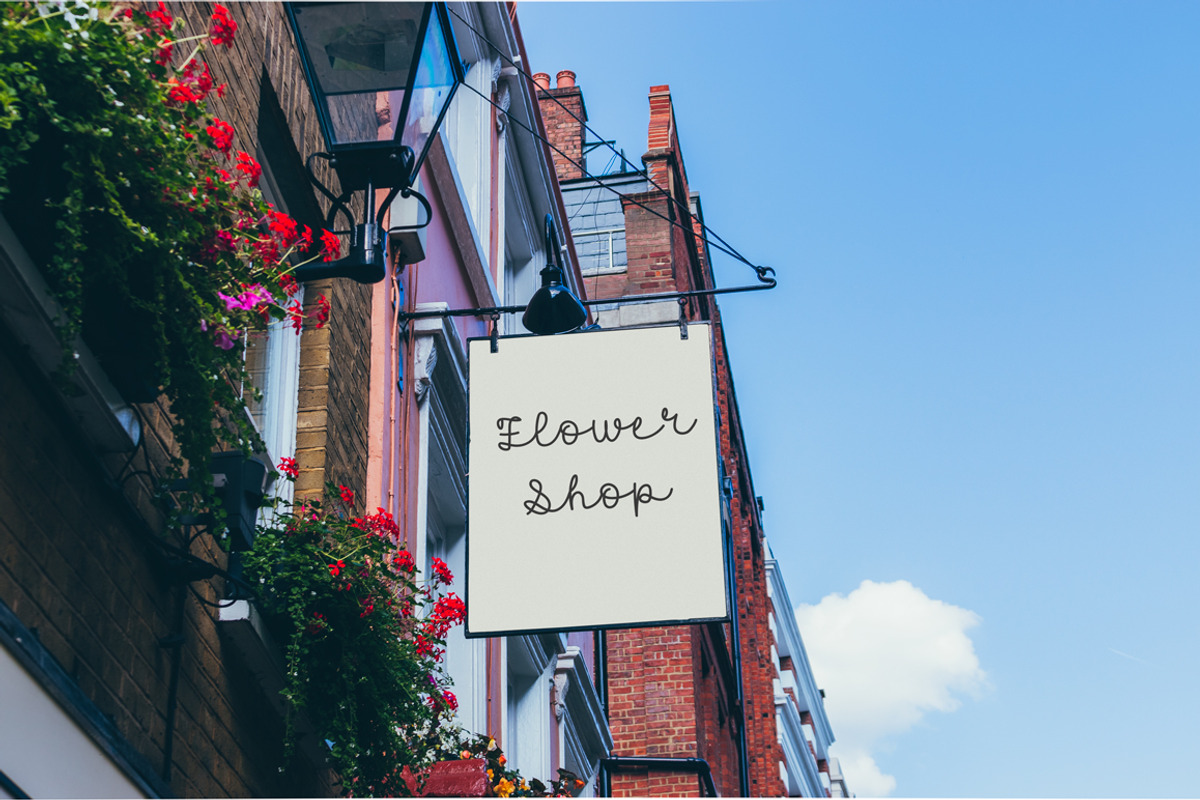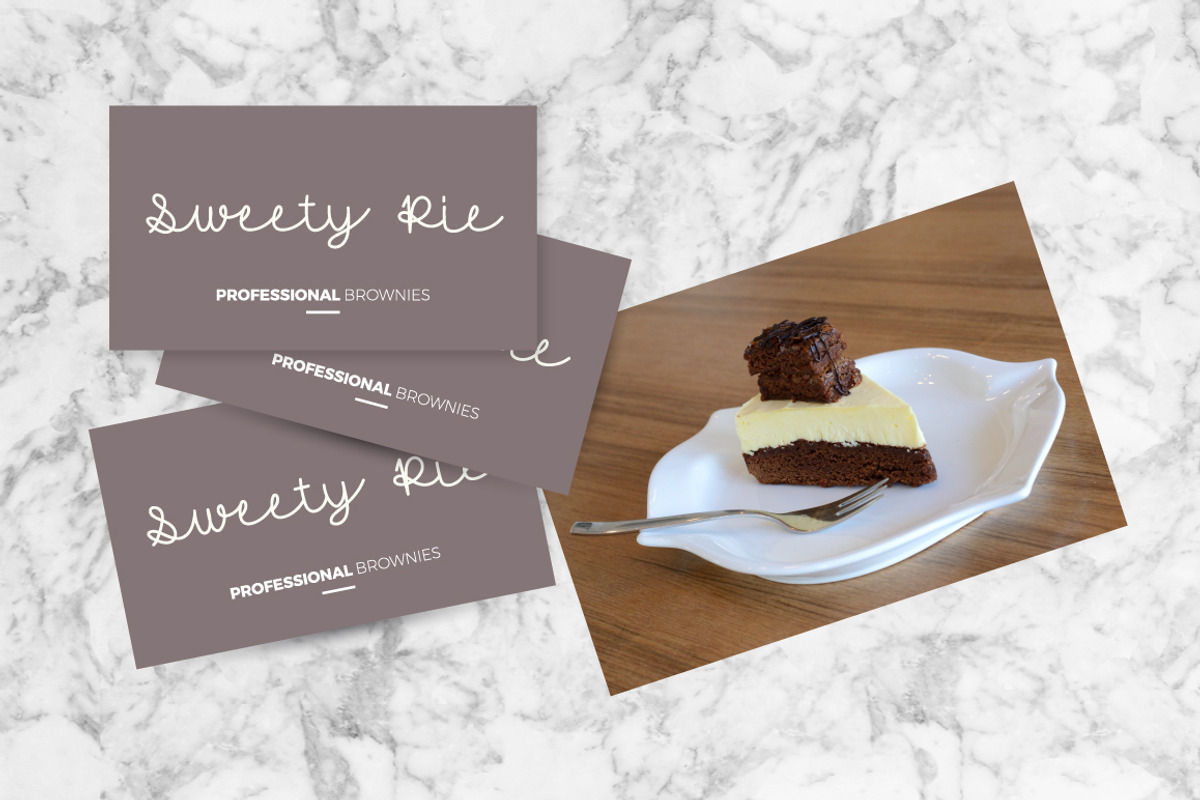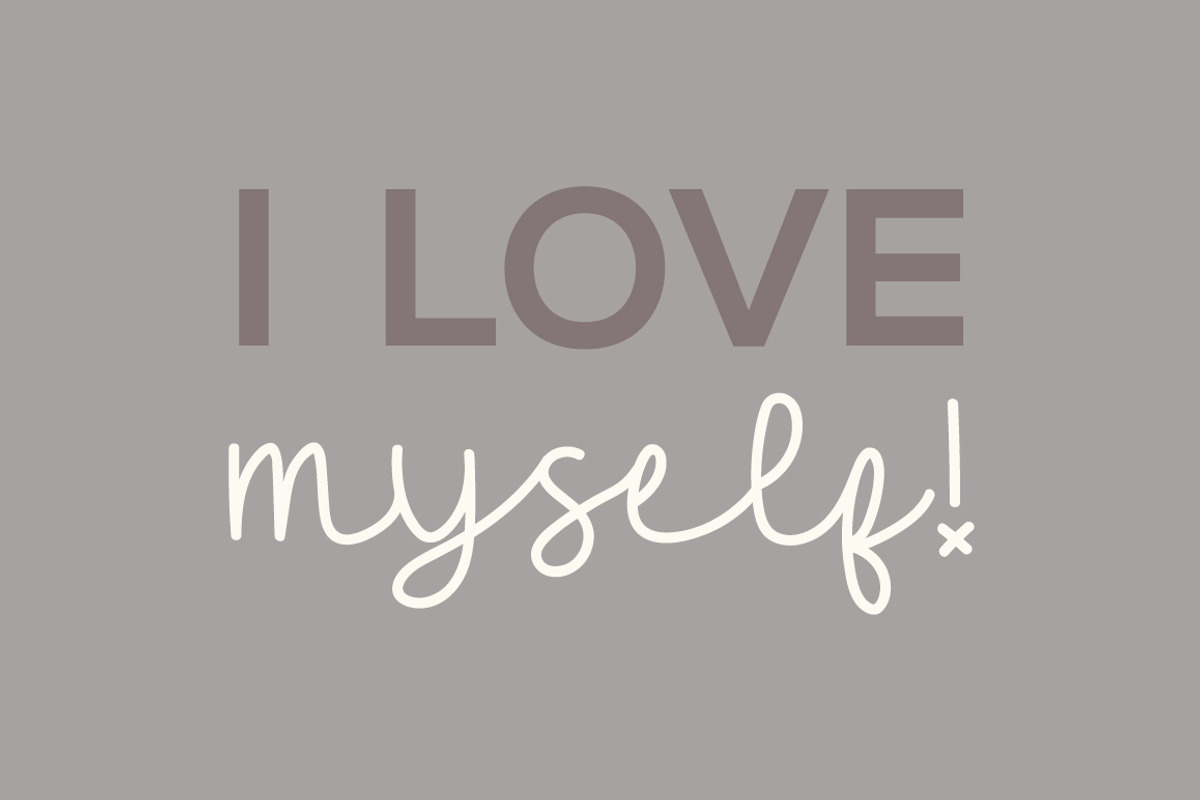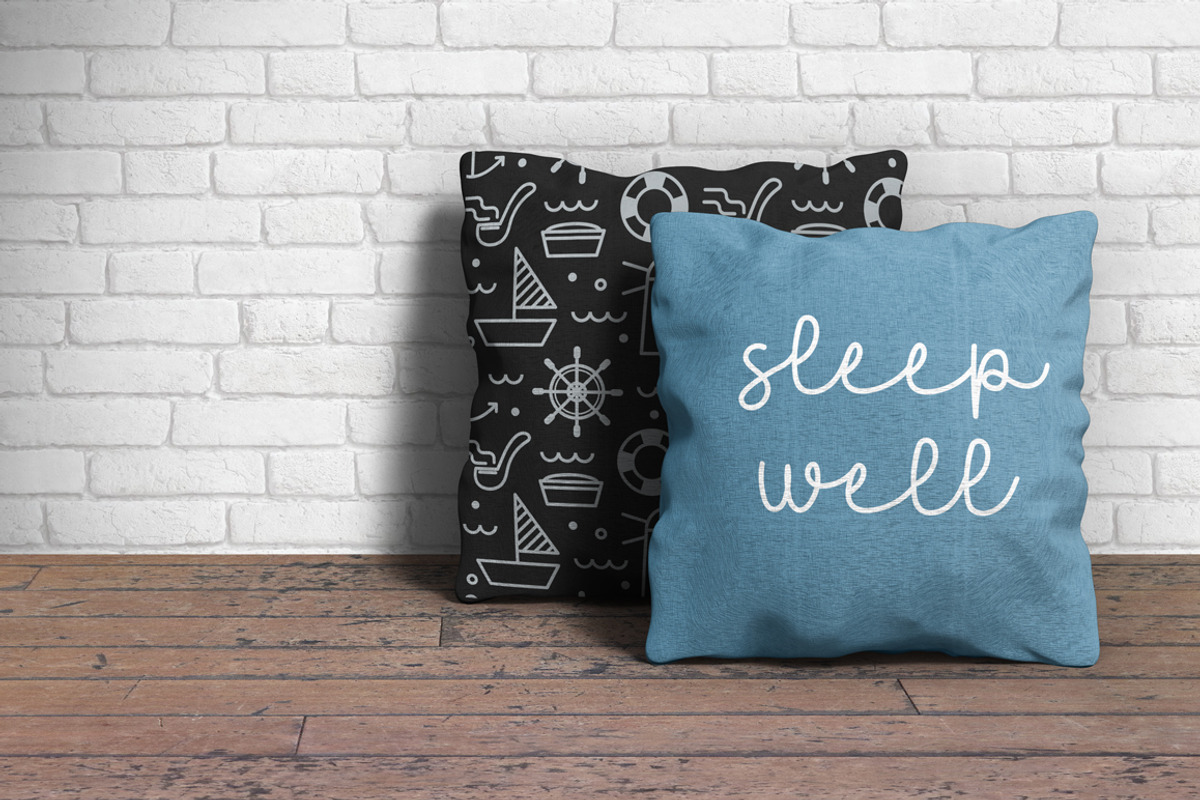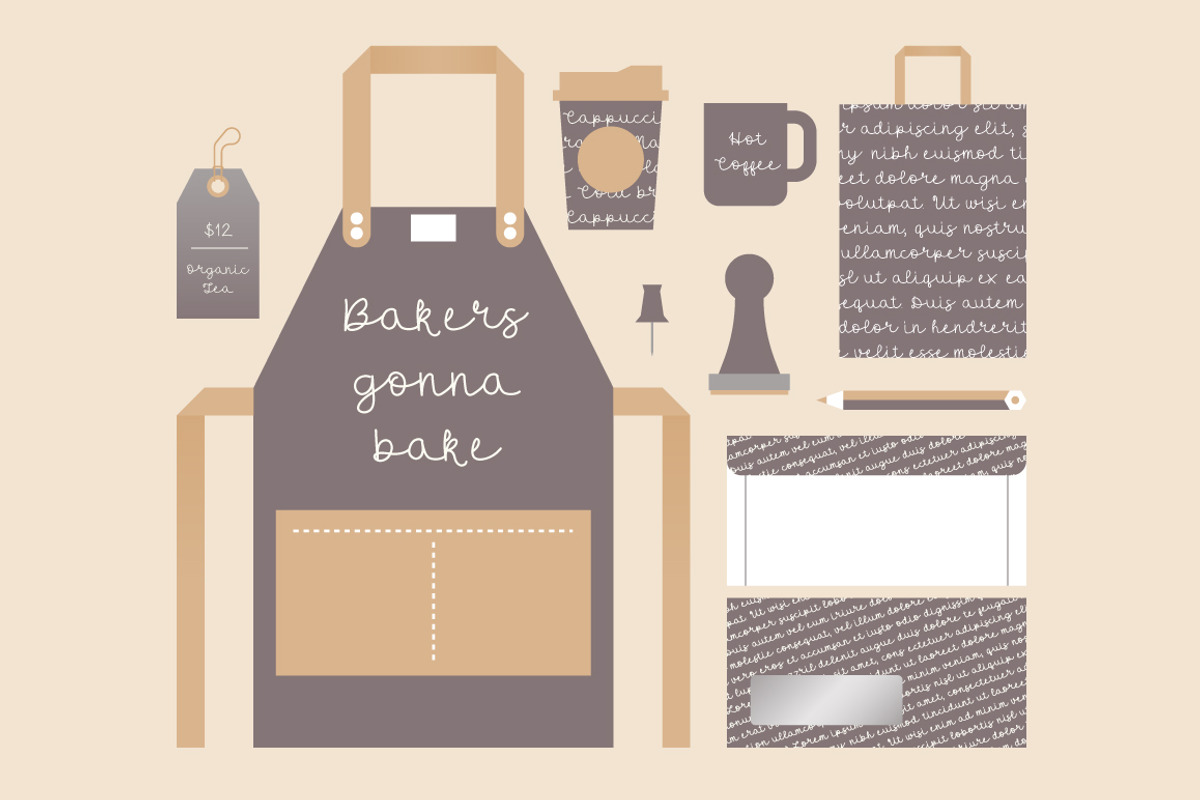
Hello Chiang Mai Script
Hello Chiang Mai is a mono line script typeface designed to give off a stylish and relaxed vibe. The name Hello Chiang Mai was inspired by the city of Chiang Mai in Thailand. It is a beautiful city where people are lovely and friendly and there are tons of coffee shops!
Hello Chiang Mai includes standard English characters (A-Z, a-z), latin alphabets, numbers (0-9), symbols, punctuation and ligatures.